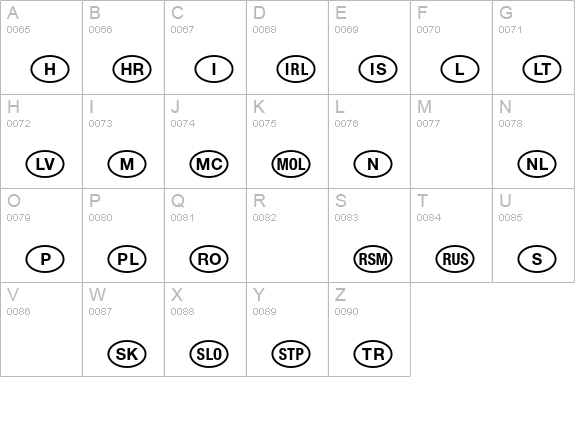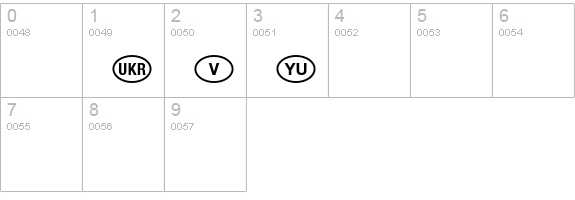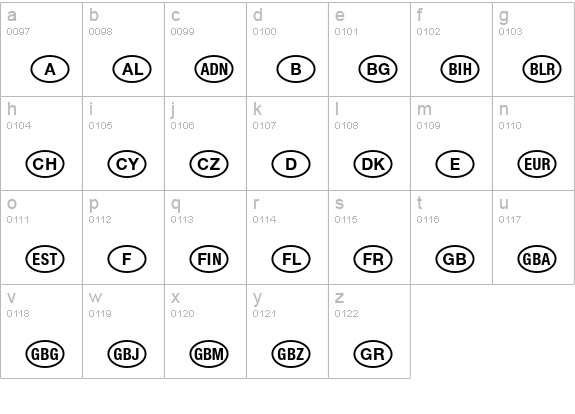
NationalCodes Europe font is a beautifully designed typeface that exudes elegance and sophistication. With its sleek lines and modern aesthetic, this font is perfect for a wide range of design projects. Whether you're creating a website, a brochure, or any other graphic design piece, NationalCodes Europe font will add a touch of class to your work. What sets NationalCodes Europe font apart is that it is not only stylish but also easy to read, making it a versatile choice for both headline and body text. Its clean, crisp letterforms are sure to make your content stand out. The best part? NationalCodes Europe font is completely free to download at FontsMarket.com. So why wait? Add this stunning font to your collection today and take your design projects to the next level.